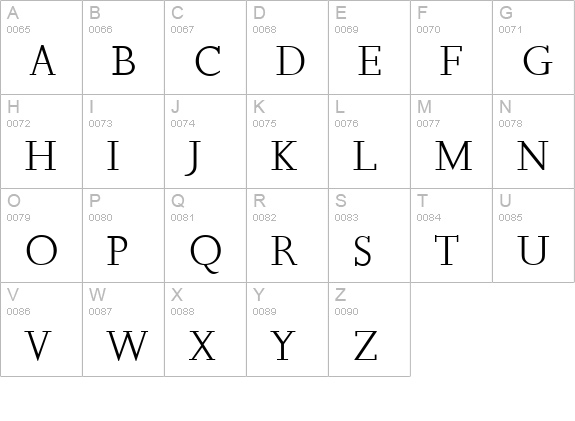
JessicaSerial-Light-Regular is a refined, elegant variant in the JessicaSerial typeface family \xE2\x80\x94 well suited to elegant body text, refined sub-headings, and luxury branding.
JessicaSerial-Light-Regular is a sleek and modern font that exudes elegance and sophistication. With its clean lines and subtle curves, this font is perfect for a wide range of design projects, from branding to editorial design. The light weight of the font adds a touch of delicacy and refinement, making it ideal for creating a sense of sophistication in your designs. The best part? JessicaSerial-Light-Regular is available for free download at FontsMarket.com. This means you can easily access this beautiful font and incorporate it into your projects without any cost. Whether you're working on a personal project or a client's design, JessicaSerial-Light-Regular is a versatile font that will elevate your work and give it a touch of elegance. Download it today and add a touch of sophistication to your designs!